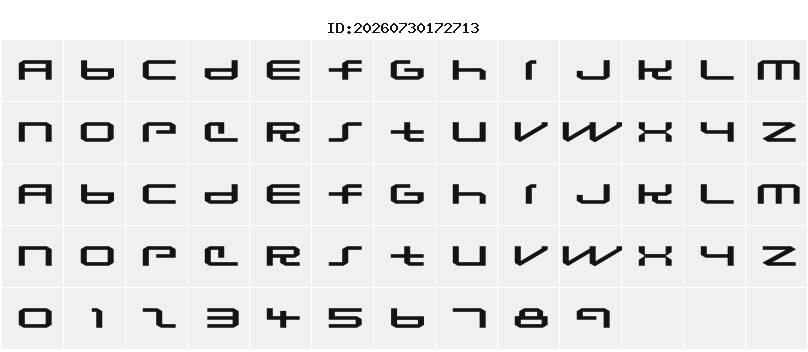
Lunasequent Preview
• Font Name: Lunasequent
• Full Font Name: Lunasequent
• PostScript Name: Lunasequent
About Lunasequent.ttf
Lunasequent.ttf is a modern, elegant sans-serif font designed for ultimate readability and visual harmony. Perfect for branding, headlines, web design, and print materials.